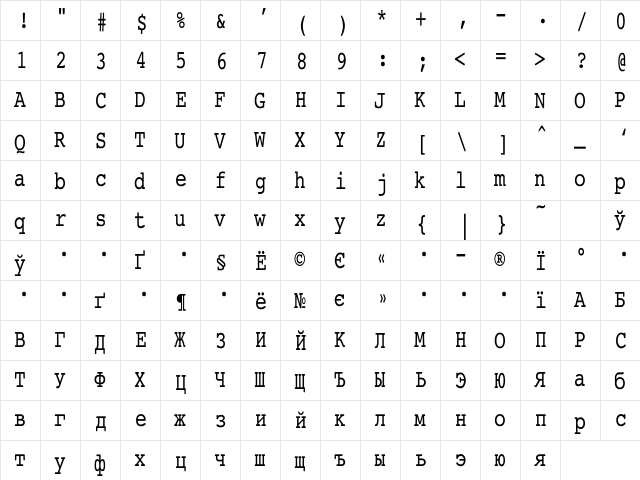
Courier Condensed Regular
Design Context for Courier Condensed Typeface
Courier Condensed uses fixed-width spacing throughout, giving it the structured, systematic character associated with coding environments and technical documentation.
Well-suited to data-driven dashboards, coding tutorials, and any design that wants to reference the world of programming.
Pro Tip: Use Courier Condensed with slightly increased line-height for extended reading — fixed-width spacing can feel dense in longer passages without extra breathing room.